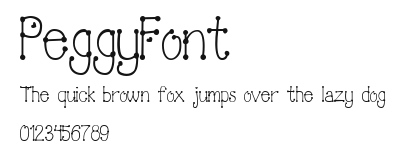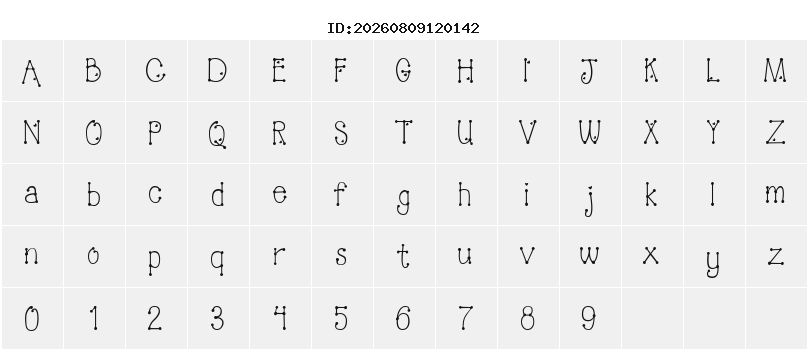
PeggyFont.ttf
• Font Name: PeggyFont
• Font Style: Light
About PeggyFont.ttf
PeggyFont.ttf is a modern, elegant sans-serif font designed for ultimate readability and visual harmony. Perfect for branding, headlines, web design, and print materials.